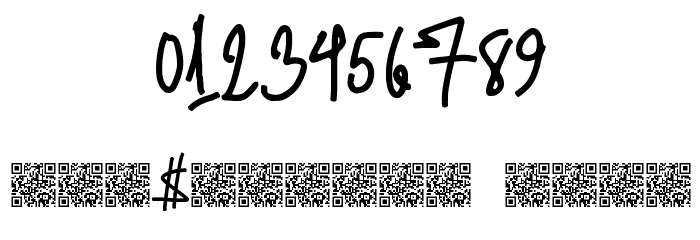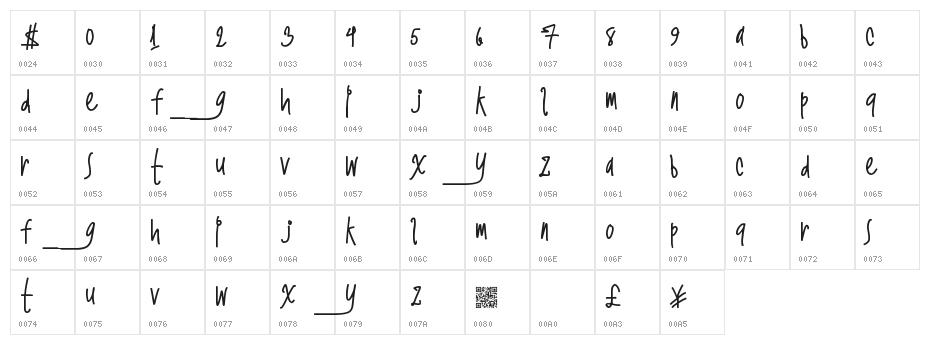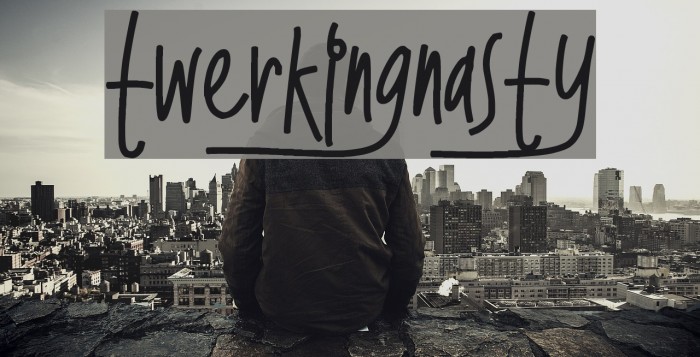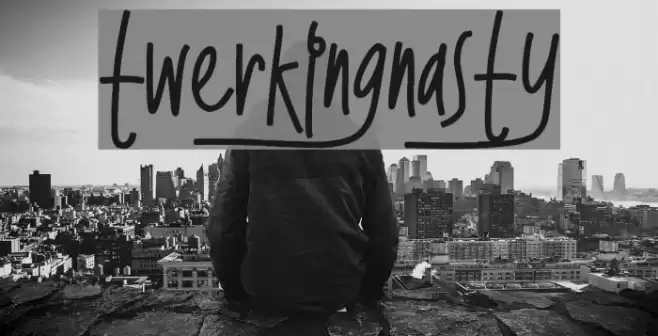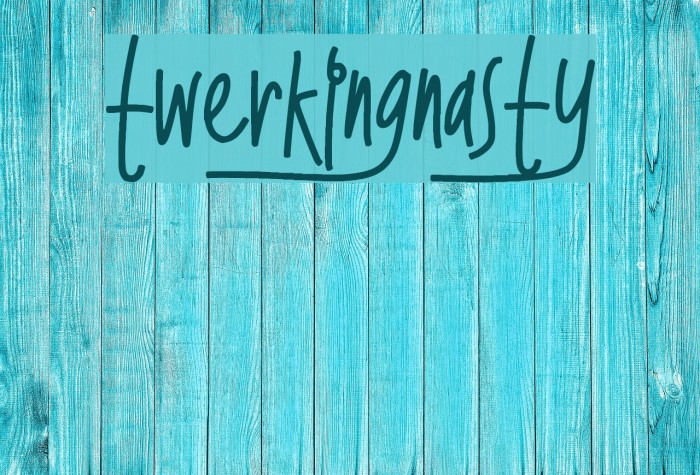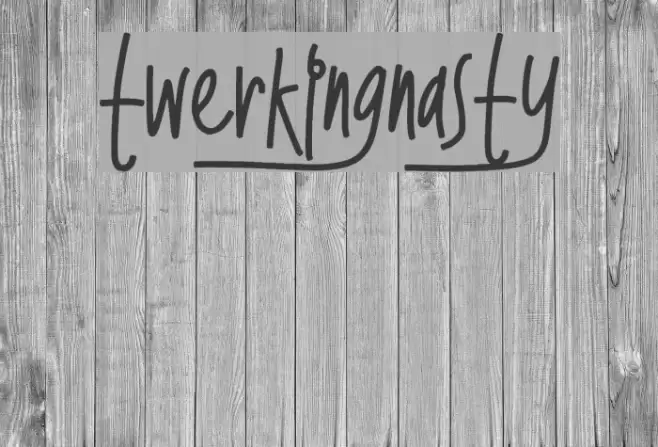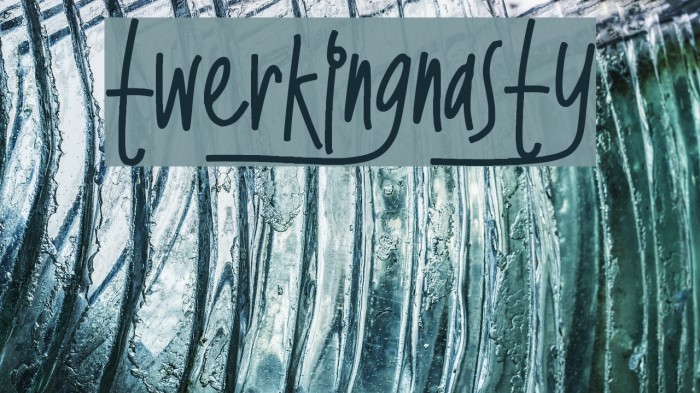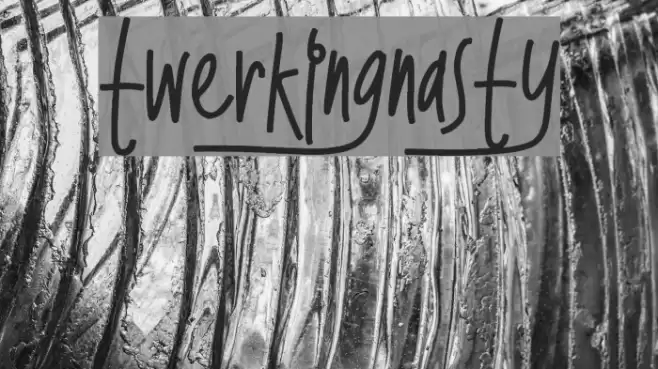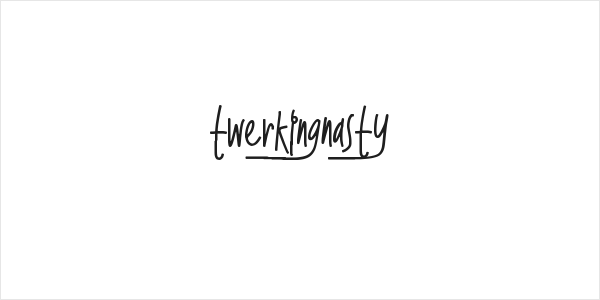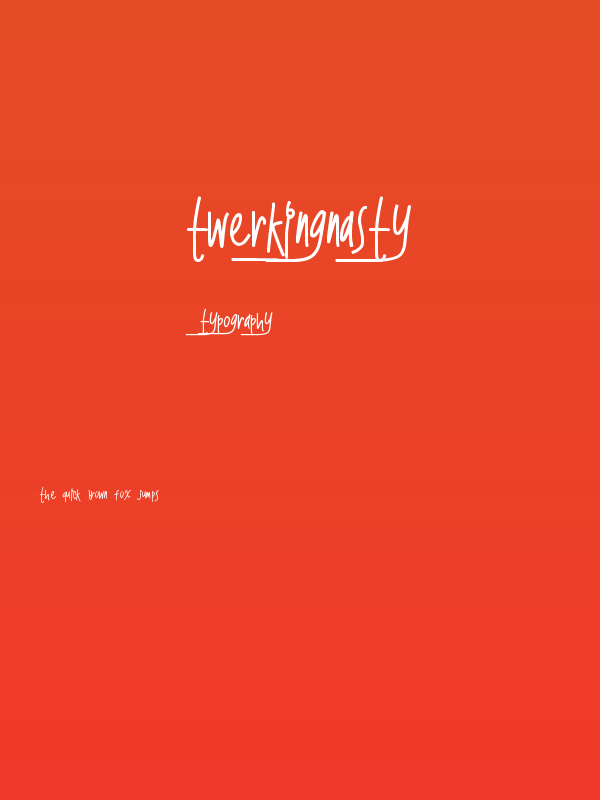
TwerkingNasty Font
TwerkingNasty Description
This font exhibits a playful and casual handwritten style, characterized by its fluid and dynamic strokes. The letters are slightly slanted, giving a sense of motion and energy. Each character is uniquely crafted, with varying heights and widths that add to its informal charm. The uppercase letters maintain a consistent height, while the lowercase letters show a more varied baseline, enhancing the handwritten feel. The numerals are bold and clear, matching the overall style of the alphabet. Special characters are creatively integrated, maintaining the font's lively and spontaneous appearance.
| Proposed Projects | Ideal for personal branding, creative projects, social media graphics, and informal invitations. |